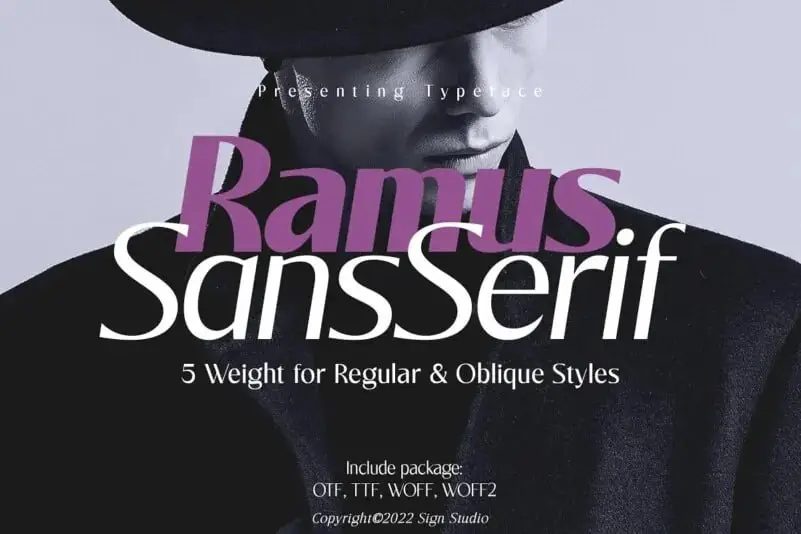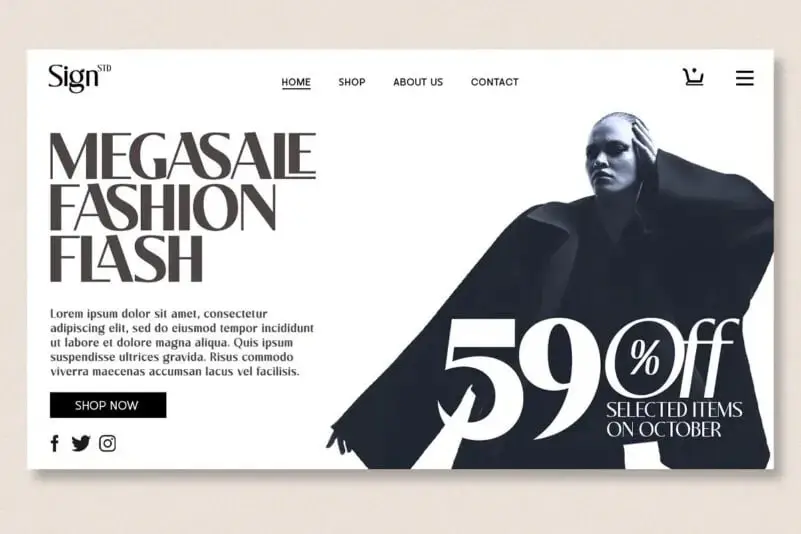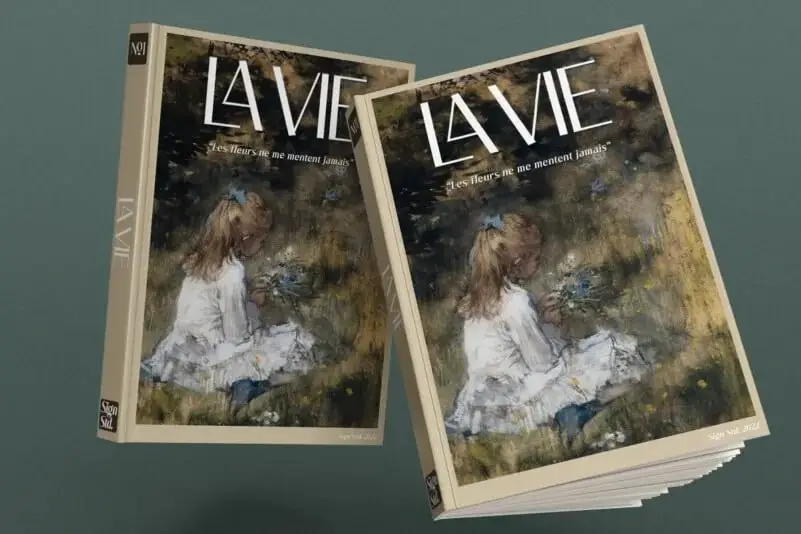
Ramus Sans Font Family By Sign Studio
The Ramus Sans Font Family by Sign Studio is a modern and versatile typeface designed to elevate your design projects. With its clean lines and contemporary aesthetic, this font family is perfect for a wide range of applications, including branding, logos, web design, and print materials.
• Multiple weights for flexibility in design
• Clear and legible letterforms
• Stylish and modern look suitable for various contexts
• Uppercase and lowercase characters included
• Numerous special characters and symbols
• Ideal for web and print applications
• Utilize bold weights for headlines and emphasis
• Pair with complementary serif fonts for a balanced look
• Experiment with different sizes for impactful designs